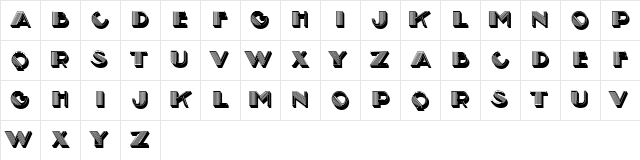
Perfomer 3D Regular
Design Context for Perfomer 3D
Perfomer 3D is a composed and adaptable typeface that performs quietly and consistently across a wide range of design contexts.
Pro Tip: Use Perfomer 3D in both headline and body roles to test its range before committing to a single application.